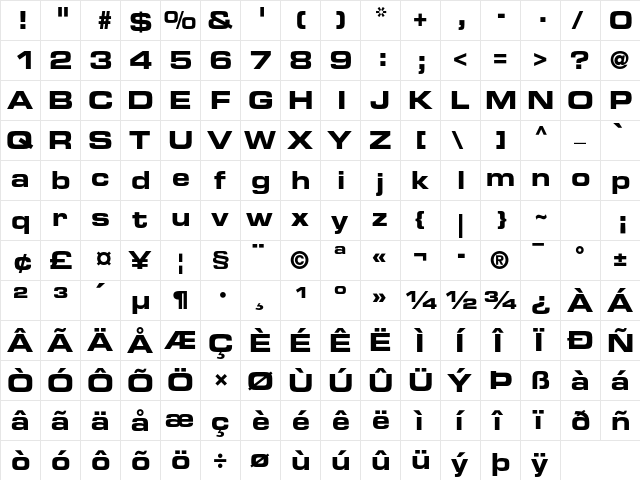
Eurostile LT Std Bold Extended 2
| Designer | Aldo Novarese, A. Butti |
Design Context for Eurostile LT Std Typeface
Eurostile LT Std offers clean, dependable letterforms without strong stylistic allegiance, making it a practical choice for designers who need flexibility. The heavy weight commands attention and anchors typographic hierarchies.